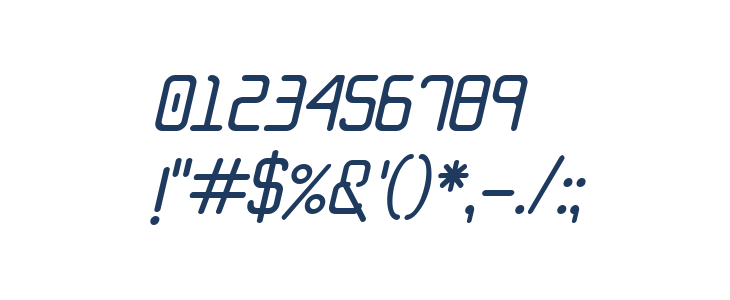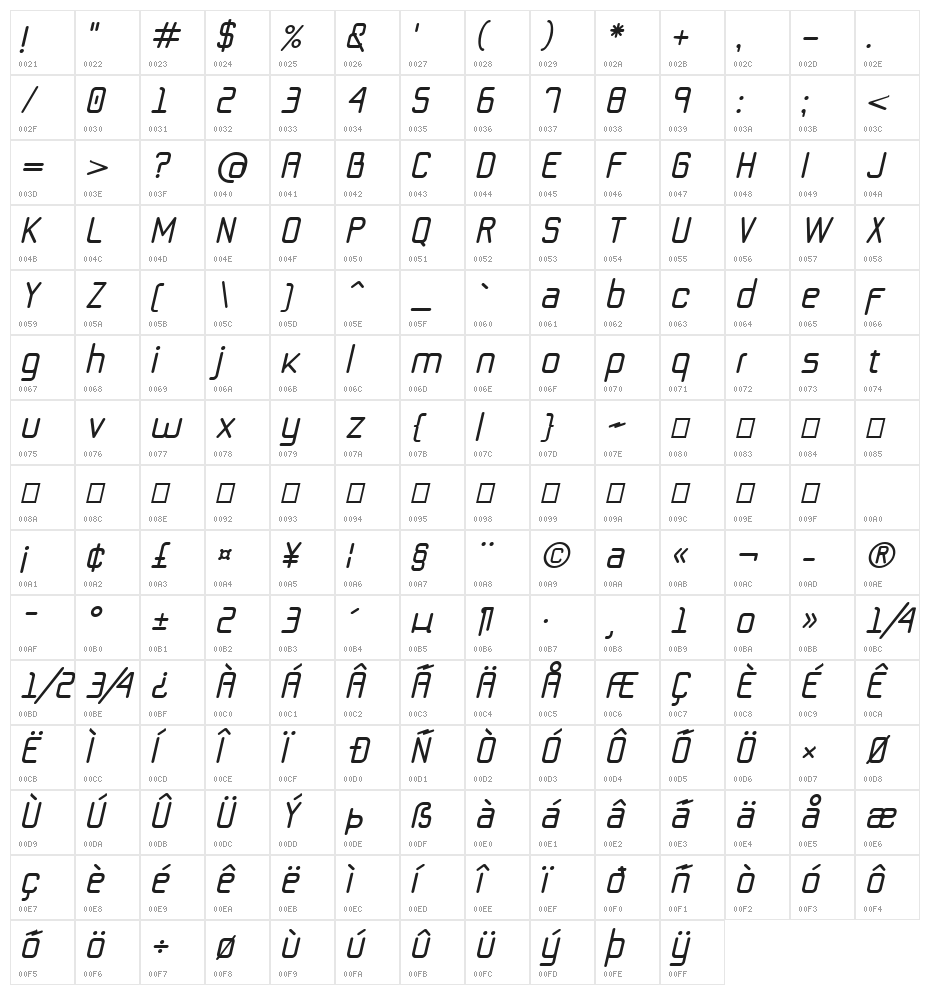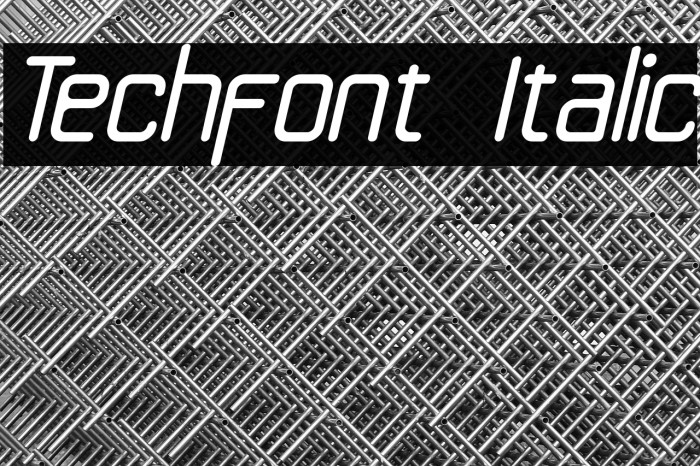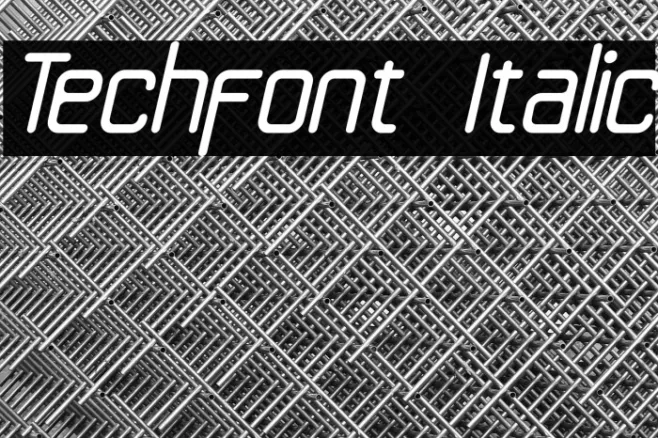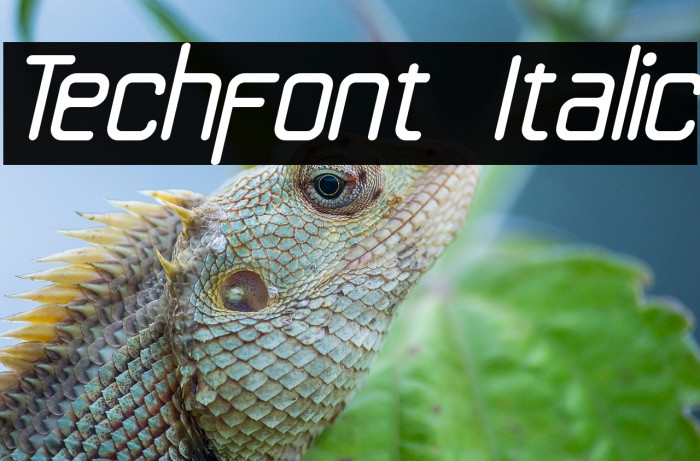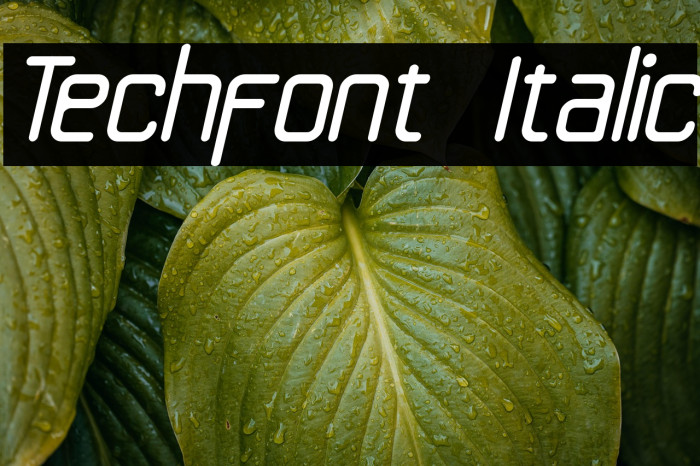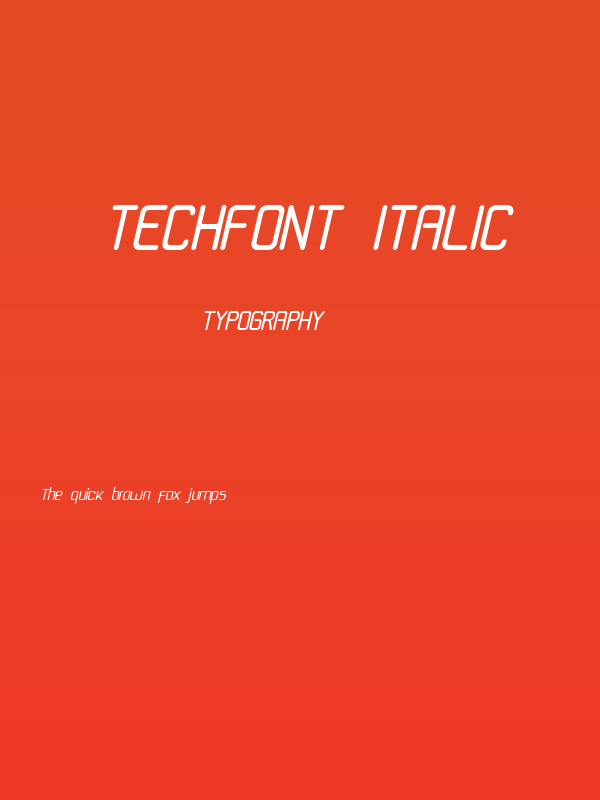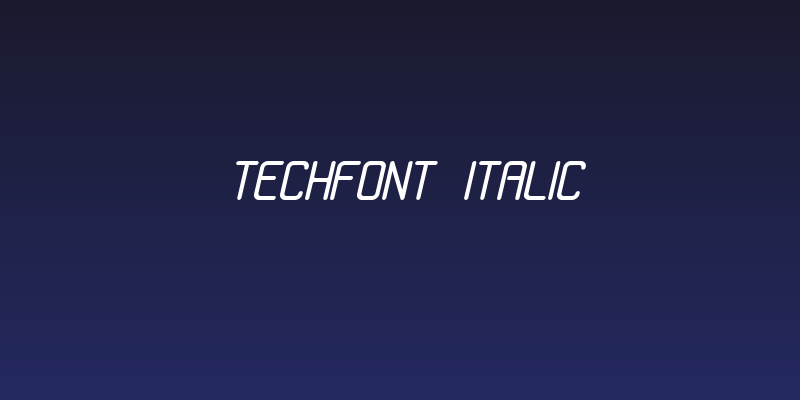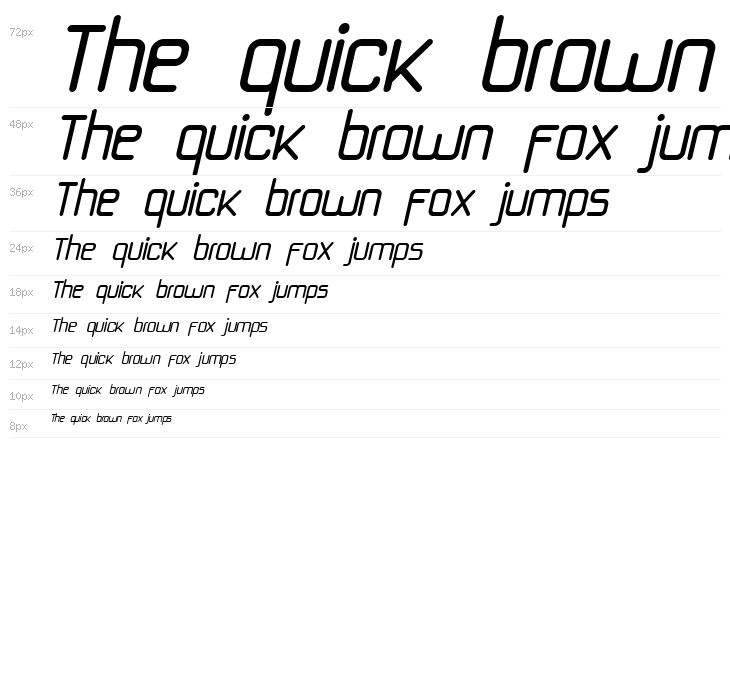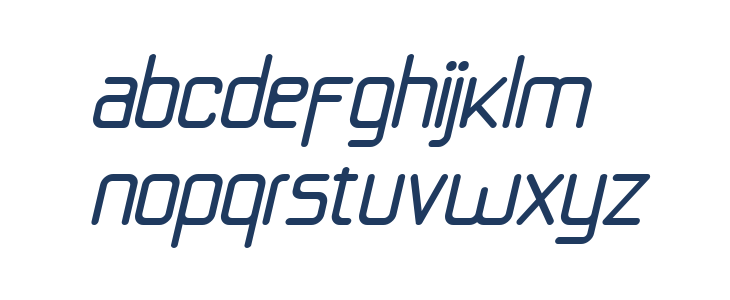
Techfont Italic Font
Techfont Italic Description
This font exhibits a sleek, modern design with a distinctly technological feel. The characters are italicized, giving a sense of motion and dynamism. Each letter is crafted with rounded edges and a consistent stroke width, contributing to a clean and futuristic appearance. The uppercase and lowercase letters maintain a uniform style, with a slight slant that enhances the font's contemporary aesthetic. The numerals and special characters are designed to match the overall theme, ensuring a cohesive look across all elements. This font is ideal for projects that require a modern, tech-savvy touch.
| Use Case | Headlines, Logos, Digital Interfaces |
| Proposed Projects | Ideal for tech branding, digital interfaces, futuristic posters, and innovative product packaging. |